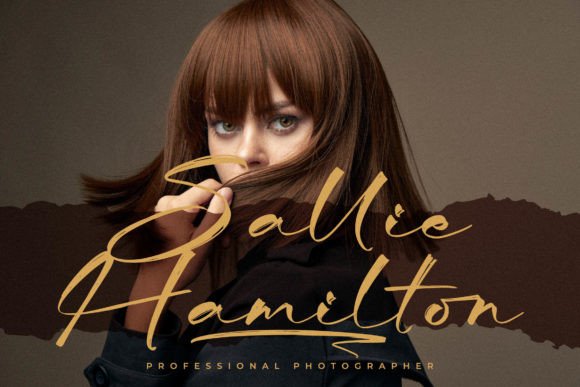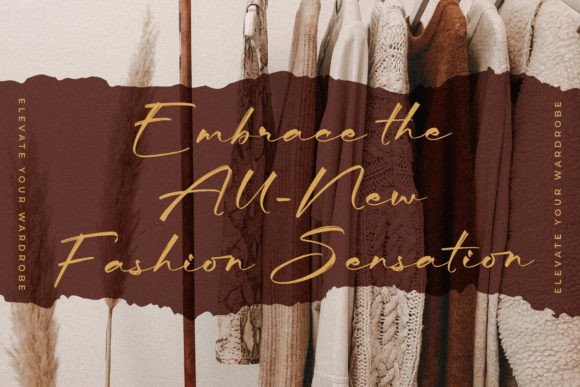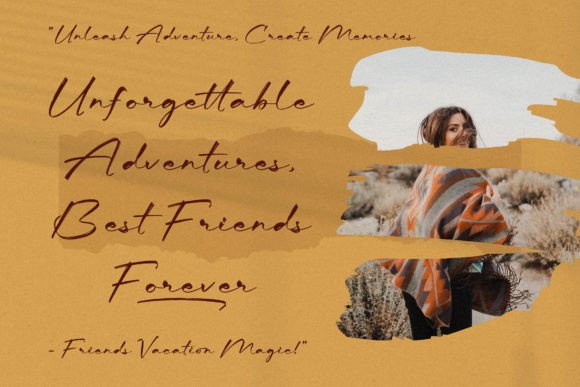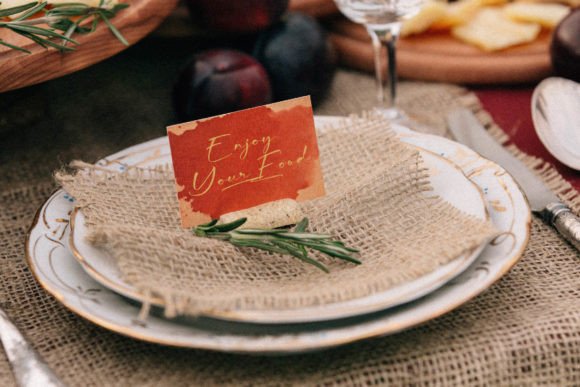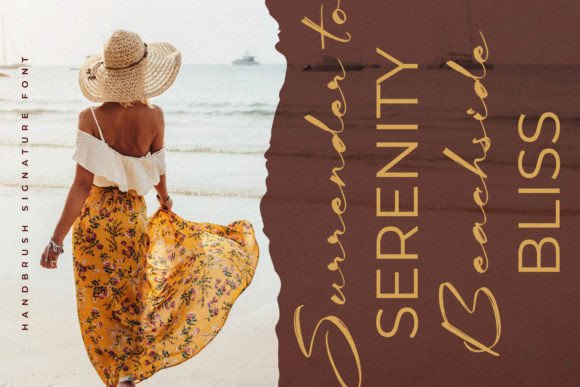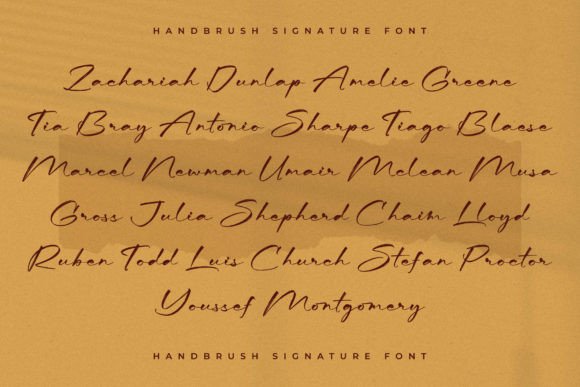
Harttley Suttonline: The Elegant Handbrush Signature Font for Your Creative Projects
Are you a designer or crafter looking for a unique and elegant font to elevate your creative projects? Look no further than Harttley Suttonline, a beautiful handbrush signature font from Glorytype Studio. This stunning font is perfect for a wide range of projects, from logos and branding to homeware designs, product packaging, and more.
What is Harttley Suttonline?
Harttley Suttonline is a handbrush signature font that exudes elegance and sophistication. With its flowing lines and delicate strokes, this font is sure to add a touch of class to any project. The font is designed to mimic the look of hand-painted signs, giving it a unique and personal feel that’s perfect for crafters and designers who want to add a human touch to their work.
Features of Harttley Suttonline
So what makes Harttley Suttonline so special? Here are just a few of its key features:
- Beautiful handbrush script: Harttley Suttonline features a stunning handbrush script that’s perfect for adding a touch of elegance to your projects.
- Unique and personal feel: The font’s hand-painted look gives it a unique and personal feel that’s perfect for crafters and designers who want to add a human touch to their work.
- High-quality design: Harttley Suttonline is designed to the highest standards, with clean lines and precise strokes that ensure it looks great in any size or application.
- Versatile: This font is perfect for a wide range of projects, from logos and branding to homeware designs, product packaging, and more.
Uses for Harttley Suttonline
So what can you use Harttley Suttonline for? The possibilities are endless! Here are just a few ideas to get you started:
- Logos and branding projects: Add a touch of elegance to your logo or branding project with Harttley Suttonline.
- Homeware designs: Use Harttley Suttonline to add a personal touch to your homeware designs, such as ceramics, textiles, and more.
- Product packaging: Make your product packaging stand out with Harttley Suttonline, perfect for food, drink, and other consumer goods.
- Mugs and quotes: Add a touch of inspiration to your mugs and quotes with Harttley Suttonline.
- Posters and shopping bags: Use Harttley Suttonline to create eye-catching posters and shopping bags that will grab attention.
- T-shirts and book covers: Add a touch of elegance to your t-shirts and book covers with Harttley Suttonline.
- Name cards and invitation cards: Use Harttley Suttonline to create beautiful name cards and invitation cards for special events.
- Greeting cards and labels: Add a personal touch to your greeting cards and labels with Harttley Suttonline.
- Photography and watermark: Use Harttley Suttonline to add a touch of elegance to your photography and watermark.
Why Choose Harttley Suttonline?
So why should you choose Harttley Suttonline for your creative projects? Here are just a few reasons:
- Unique and elegant design: Harttley Suttonline features a unique and elegant design that’s sure to add a touch of class to any project.
- High-quality and versatile: This font is designed to the highest standards and is perfect for a wide range of projects.
- Perfect for crafters and designers: Harttley Suttonline is perfect for crafters and designers who want to add a personal touch to their work.